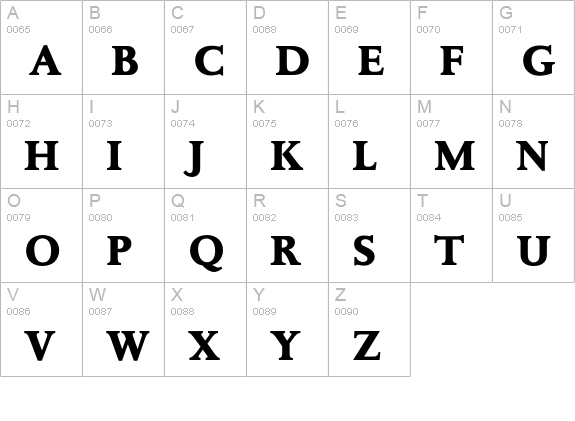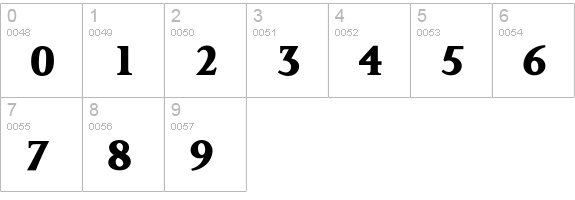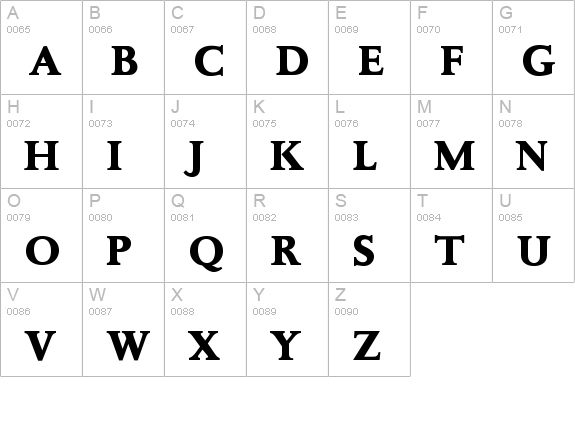
Palermo-Bold is a strong, high-contrast variant in the Palermo typeface family \xE2\x80\x94 well suited to headlines, attention-grabbing titles, and strong calls-to-action.
Palermo-Bold is a stunning and versatile typeface that exudes elegance and sophistication. It effortlessly combines classic elements with a modern twist, making it the perfect choice for a wide range of design projects. This bold and commanding font features strong, thick lines that demand attention and create a powerful impact. Its stylish and distinct letterforms have been meticulously crafted to ensure optimum legibility and readability, even at smaller sizes. Palermo-Bold is ideal for headlines, titles, logos, and any design work that requires a strong and impactful visual presence. Whether you are designing a magazine layout, creating branding materials, or crafting eye-catching advertisements, this font will elevate your designs to new levels of professionalism and sophistication. One of the best things about Palermo-Bold is that it is available for free! You can easily download this incredible font at FontsMarket.com. With just a few clicks, you can have access to this remarkable typeface, allowing you to bring your creative visions to life without any constraints. With Palermo-Bold, you can add a touch of elegance and professionalism to your designs, while also enjoying the freedom of creativity that comes with a free font. So why wait? Download Palermo-Bold today and unlock a world of design possibilities!